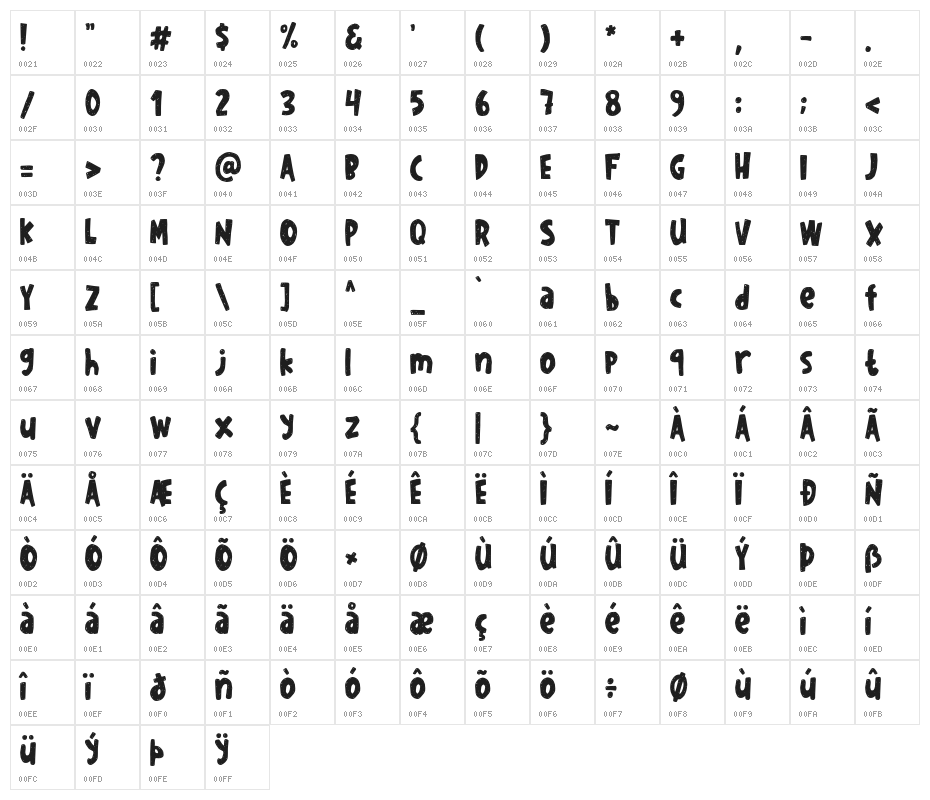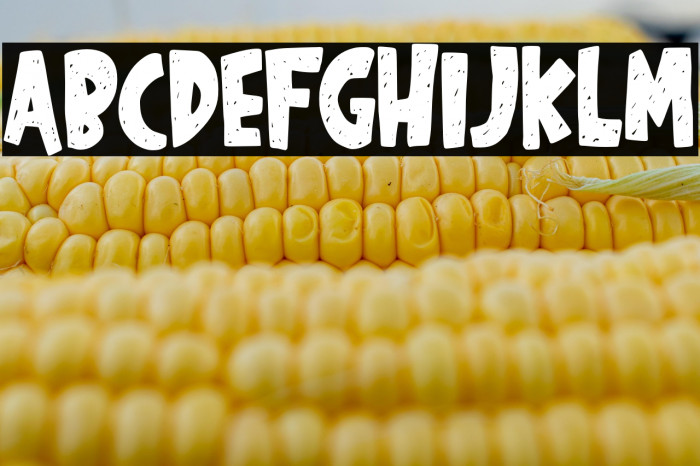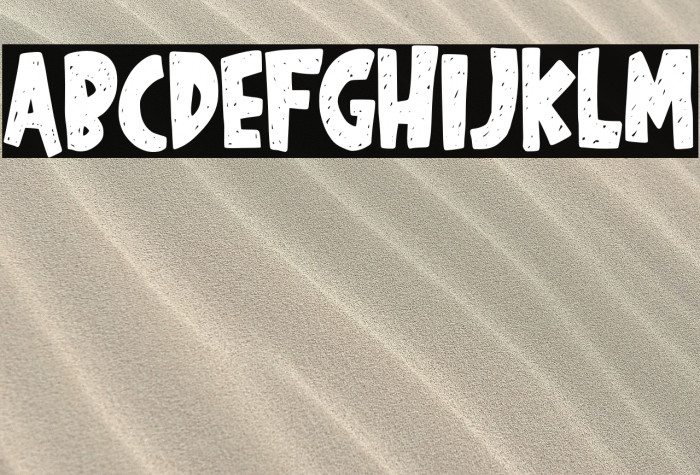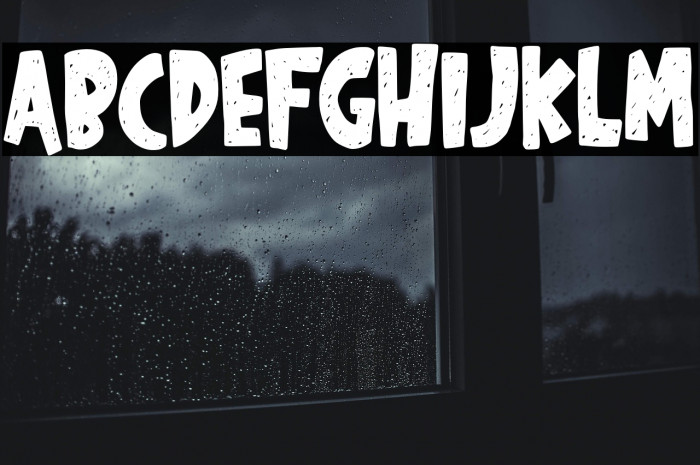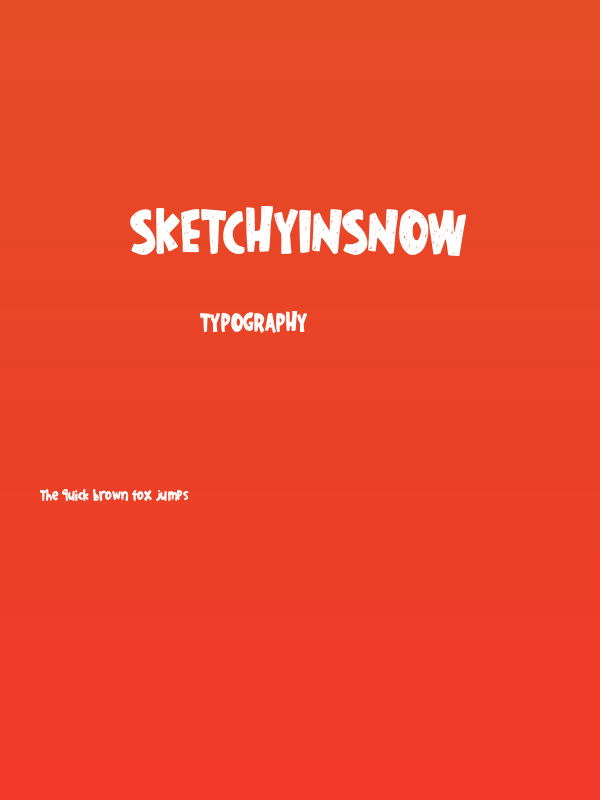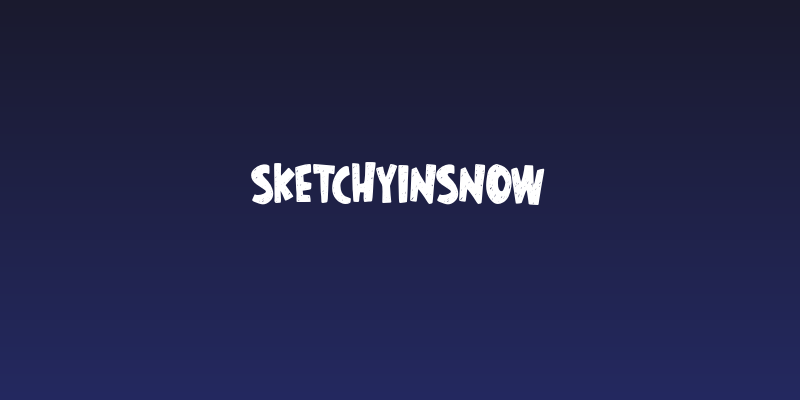
sketchyinsnow Font
sketchyinsnow Description
This playful and bold font features a hand-drawn, sketchy style with a snowy texture that gives it a unique, whimsical appearance. The characters are thick and rounded, with irregular edges that enhance its casual and fun aesthetic. The font includes both uppercase and lowercase letters, numerals, and a variety of special characters, all maintaining the same textured, sketch-like quality. The uneven strokes and playful design make it ideal for projects that require a touch of creativity and informality. Its distinctive look is perfect for capturing attention and conveying a sense of fun and spontaneity.
| Overall Style | Whimsical, Playful |
| Proposed Projects | Ideal for children's book covers, playful branding, greeting cards, and creative posters. |